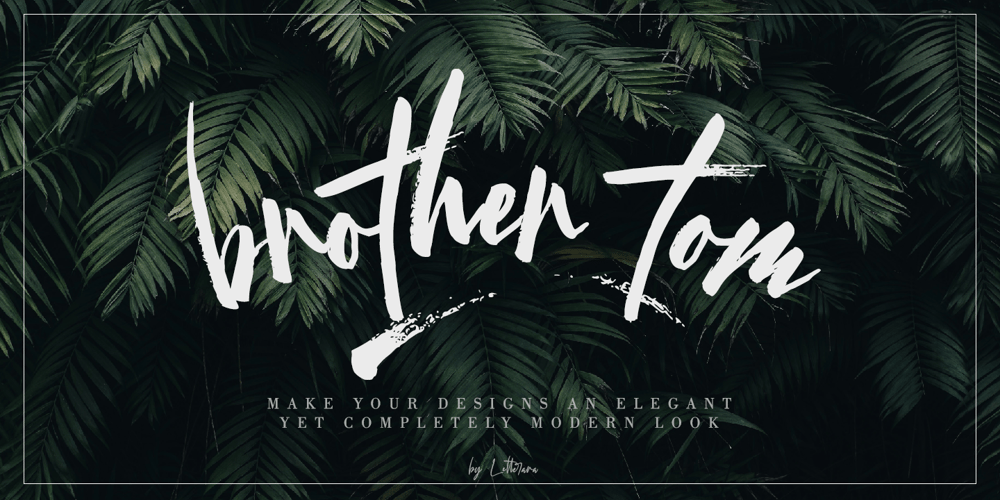
Brother Tom
Brother Tom font
Brother Tom Font Family was designed by Thomas Aradea and published by Letterara. Brother Tom contains 1 styles and family package options. Brother Tom is a textured brush font. It has a natural handmade look with a less regular baseline. Give your designs an elegant yet completely modern look with Brother Tom. It’s a great font font for any branding, posters designs, and for your upcoming winter stuff. Features : – Upper Case & Lowercase – Numerals – Punctuations (OpenType Standard) – Accents (Multilingual characters) – underline in swash – Works on PC & Mac – Simple installations – Accessible in Adobe Illustrator, Adobe Photoshop, Adobe InDesign, even works on Microsoft Word. Don’t wait anymore, put it in your shopping basket and follow me, because there will be many promos!